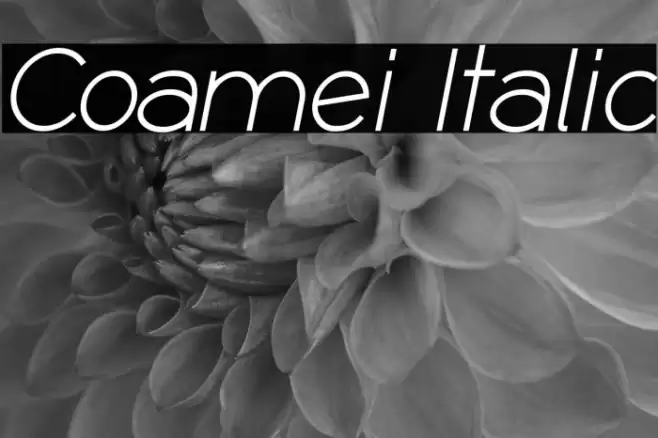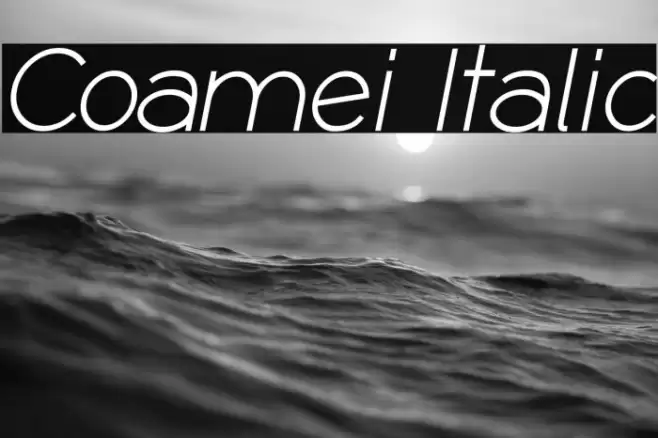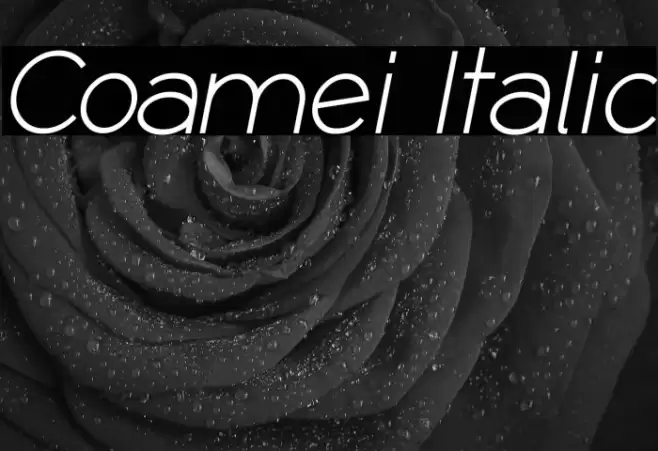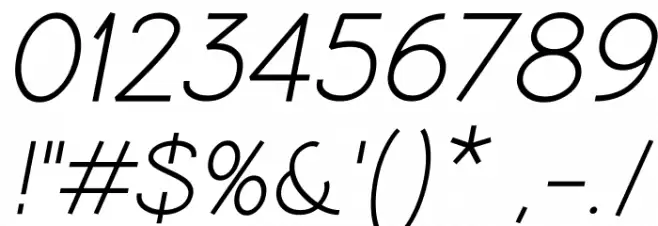
Coamei Italic Font
Coamei Italic Description
This font features a sleek and modern design with a subtle italic slant, giving it a dynamic and forward-moving appearance. The characters are clean and minimalistic, with smooth curves and a consistent stroke width that enhances readability. The uppercase letters are slightly taller than the lowercase, providing a balanced and harmonious look. The numerals are well-proportioned, and the special characters maintain the same elegant style, making this font versatile for various applications.
A sleek, modern italic font with clean lines and consistent stroke width from Uncategorized fonts.